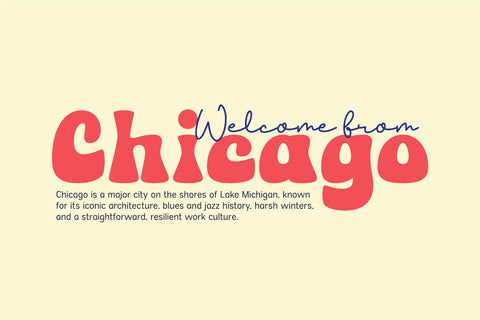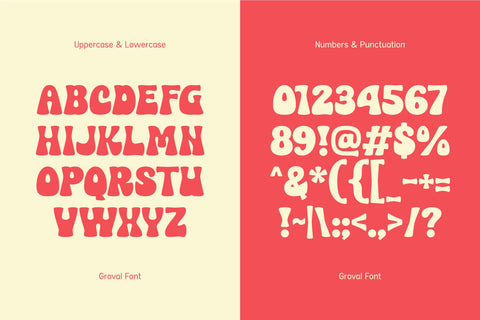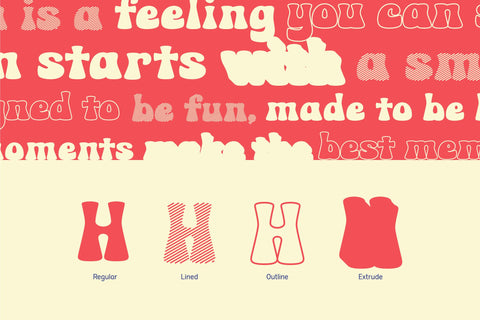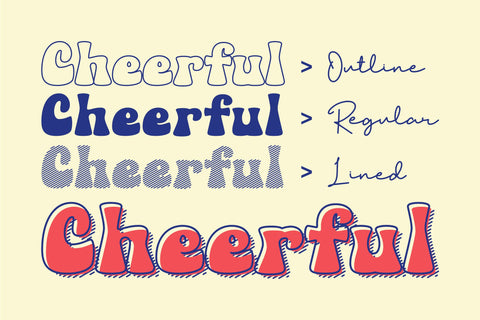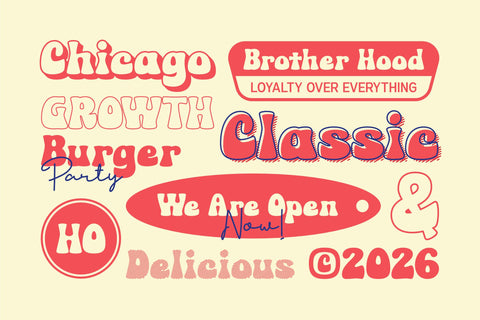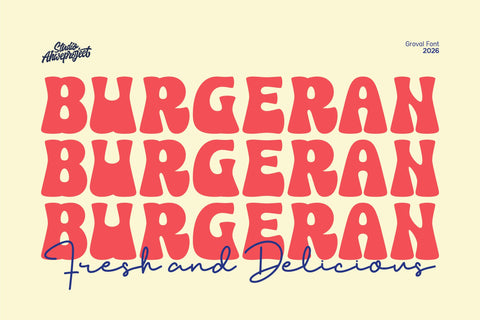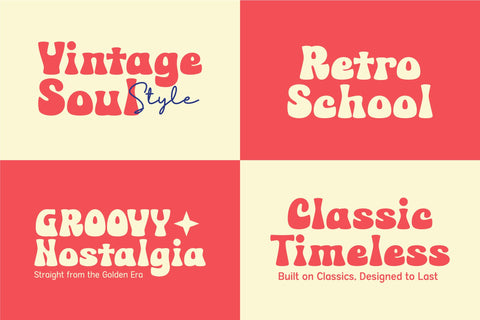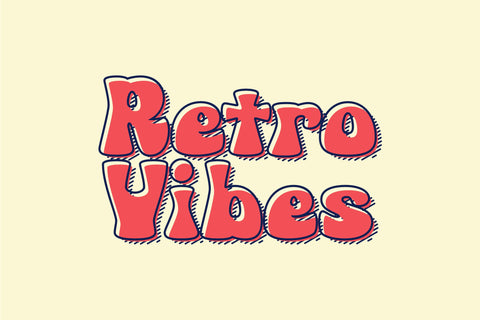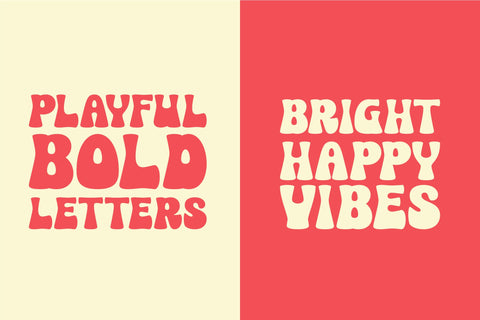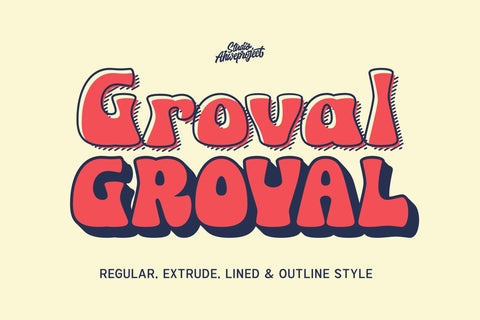
Groval
Groval is a bold, playful retro display font designed to instantly grab attention. Inspired by vintage cartoons, groovy typography, and classic poster lettering, this font brings a fun, nostalgic vibe to any design project.
With its chunky letterforms, soft curves, and expressive character, Groval is perfect for designs that need personality and impact. Whether you’re working on logos, packaging, posters, stickers, social media graphics, or branding projects, this font delivers a strong visual presence that feels both retro and modern.
Groval comes with multiple styles including Regular, Extrude, Lined, and Outline, giving you flexibility to create depth, dimension, and eye-catching compositions effortlessly. Mix and match styles to create bold headlines, playful titles, or groovy typography layouts without extra design work.
If you’re looking for a font that feels fun, confident, and memorable, Groval Groval is built to make your designs stand out and stay in people’s minds.
Perfect for:
- Logo design
- Retro & vintage branding
- Posters & flyers
- Merchandise & apparel
- Packaging design
- Social media & content creators
- Kids, fun, and playful projects
Make your design louder, bolder, and more fun with Groval.